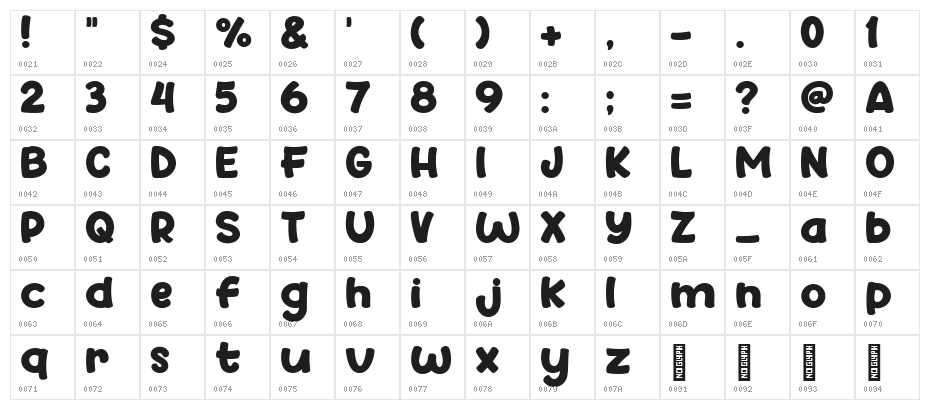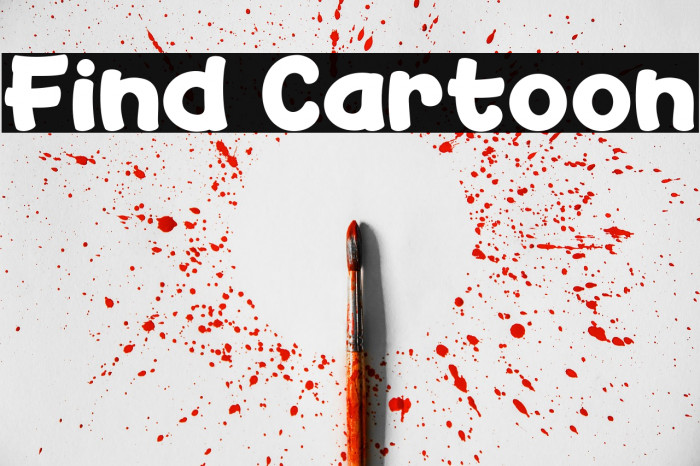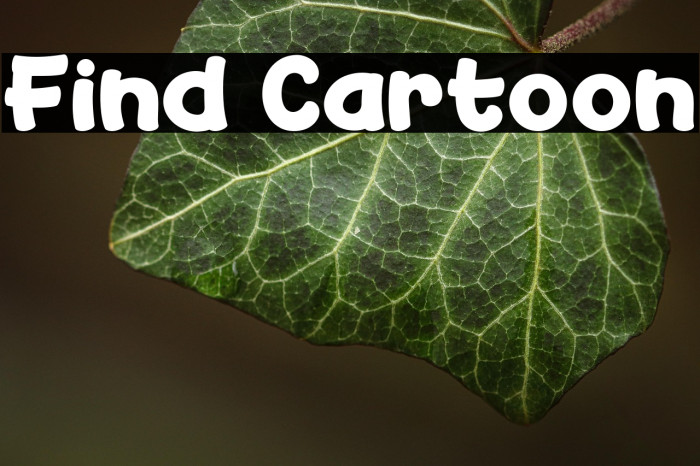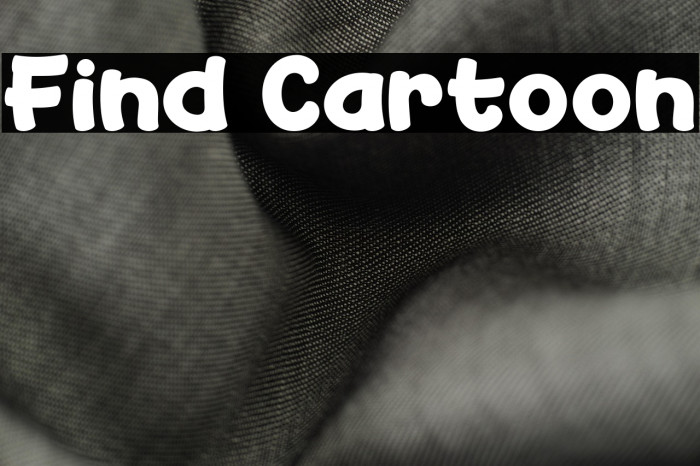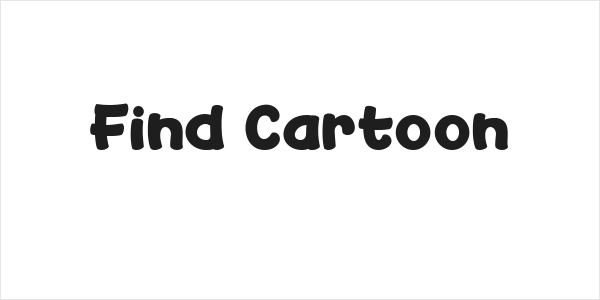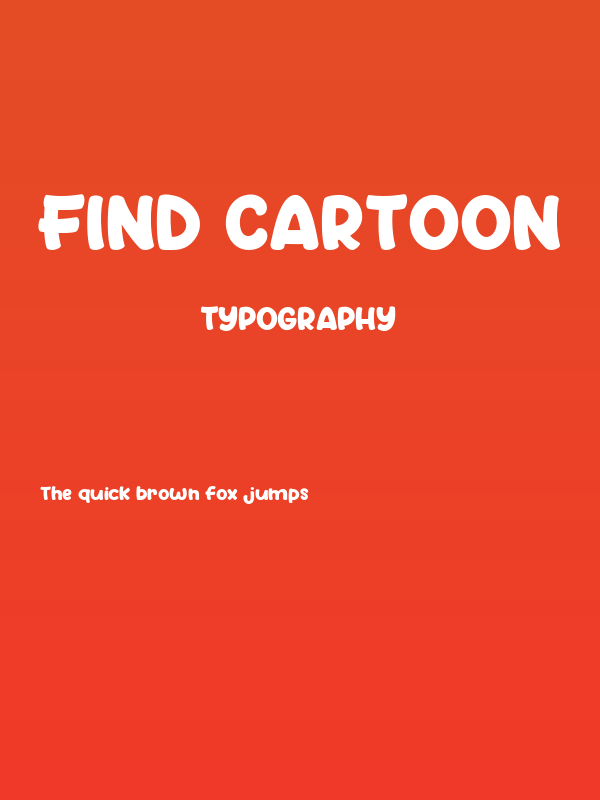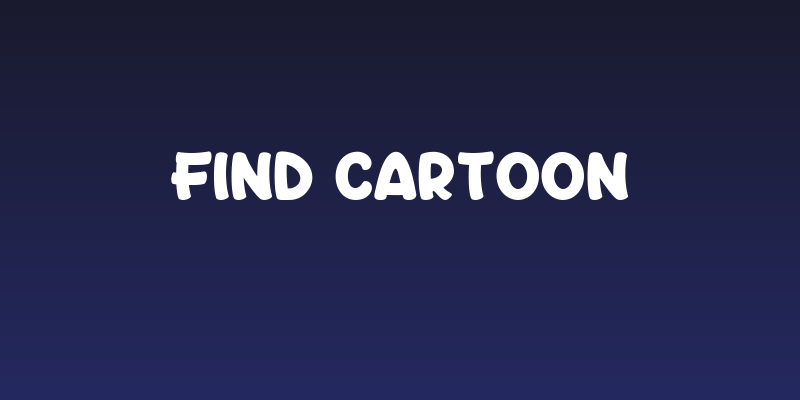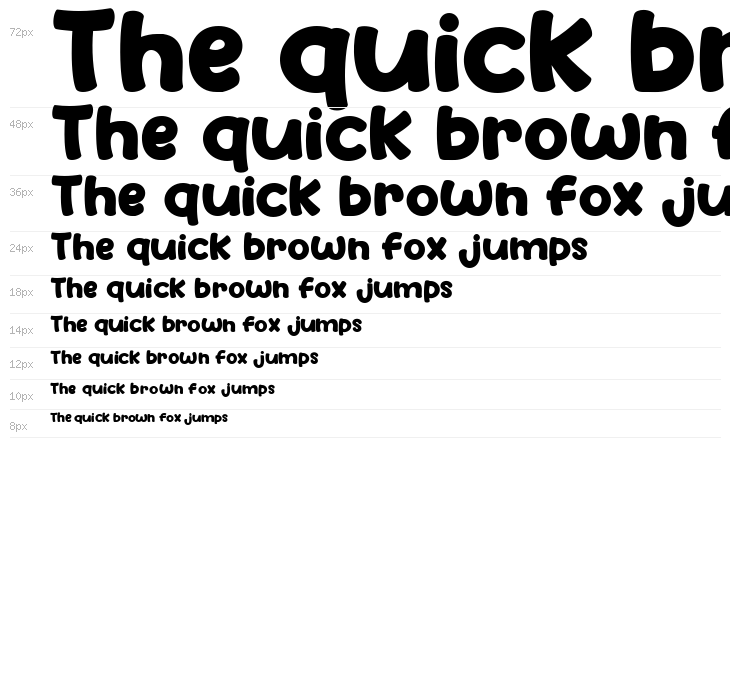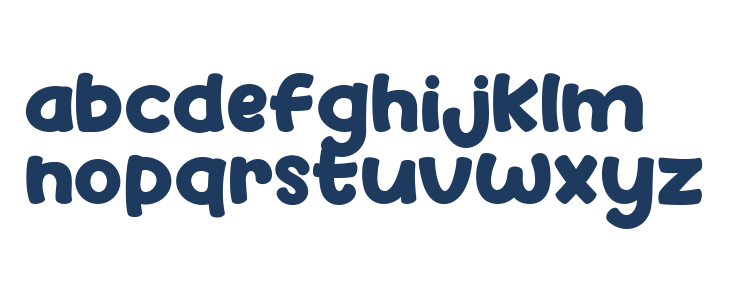
Find Cartoon Font
Find Cartoon Description
This playful and bold font features rounded, bubbly characters that exude a sense of fun and whimsy. The letters are thick and have a consistent stroke width, contributing to a cohesive and friendly appearance. The font's design is reminiscent of cartoon or comic styles, making it ideal for projects that require a lighthearted and approachable feel. The uppercase and lowercase letters maintain a uniform style, while the numbers and special characters are crafted to match the overall aesthetic. Its bold and rounded forms ensure high readability, even at smaller sizes.
Overall StylePlayful, Fun, Cartoonish
Use CaseHeadlines, Logos, Posters
Proposed ProjectsIdeal for children's books, comic strips, playful branding, and party invitations.